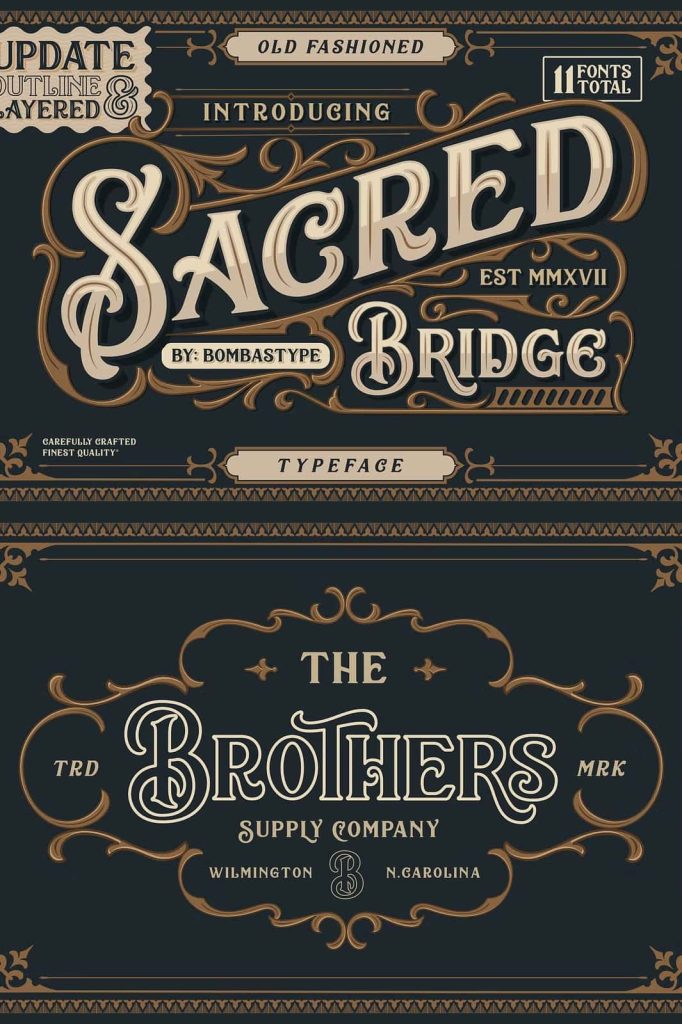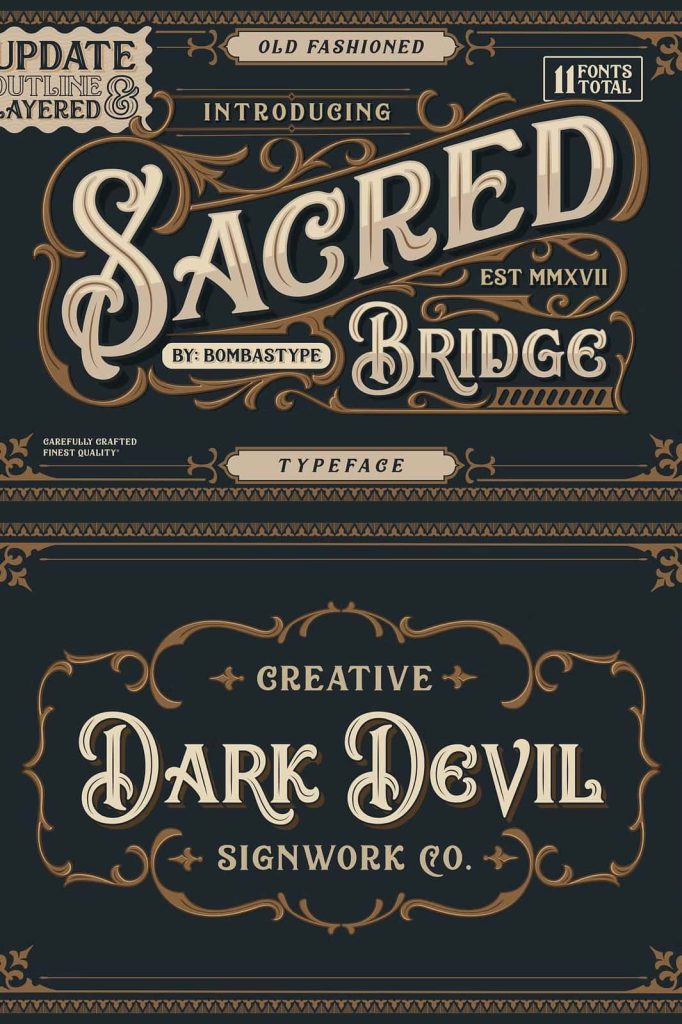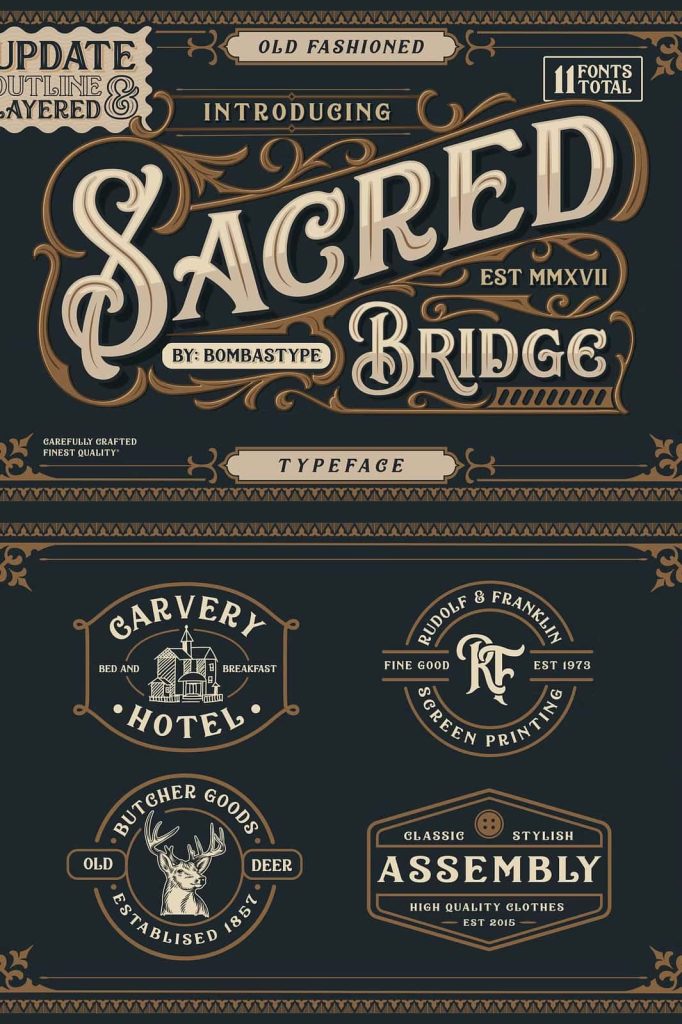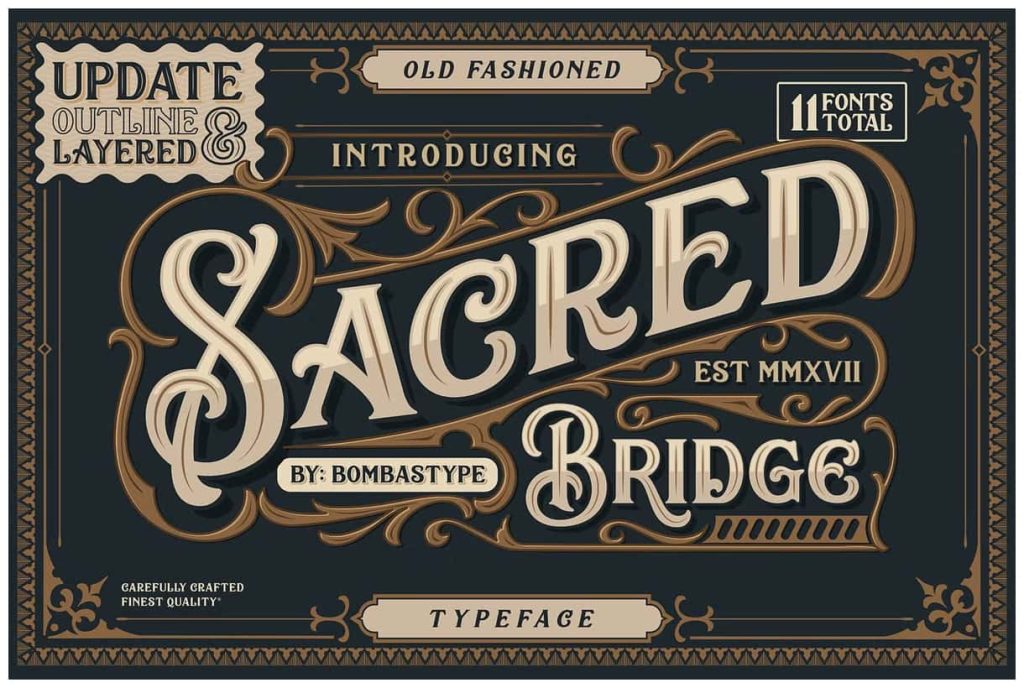
Sacred Bridge Typeface – A Vintage-Inspired Letterpress Font for Bold, Creative Design
Sacred Bridge is a vintage-inspired typeface crafted to revive the timeless beauty of old-fashioned letterpress printing. Designed with a balance of clean, crisp letterforms and authentic letterpress texture, this typeface brings character, warmth, and originality to modern creative projects. Offering both regular and italic styles, along with an impressive collection of extra ornaments and symbols, Sacred Bridge provides designers with a highly versatile typography tool that elevates branding, advertising, apparel design, and a wide range of display purposes.
A Typeface Built on Traditional Craftsmanship
Sacred Bridge draws inspiration from the rich history of classic printmaking. Its foundation reflects the stylistic nuances of traditional letterpress printing, capturing the subtle quirks, engraved textures, and handcrafted imperfections that give vintage typography its charm. Every curve and stroke is intentionally designed to recreate the feeling of early 20th-century type, while still delivering a clean and readable experience suitable for digital and print design.
This old-fashioned influence allows Sacred Bridge to stand apart from modern, overly polished typefaces. Instead, it embraces authenticity, originality, and depth—giving designers a tool that communicates craftsmanship and heritage with every letter. Whether used in large headlines or fine decorative detail, the font carries a unique story that enhances the visual identity of any project.
Clean and Letterpress Versions for Maximum Flexibility
One of the standout features of Sacred Bridge is the availability of both clean and letterpress styles. The clean version delivers sharp, refined edges suitable for minimal or modern layouts, while the letterpress version introduces textured, organic variations that mimic authentic print impressions. This flexibility allows designers to choose the exact tone they want to express, from bold clarity to nostalgic warmth.
Both versions maintain strong readability and visual impact, making them ideal for display purposes where personality and clarity must work hand in hand. The addition of italic styles further expands the creative possibilities by adding movement, emphasis, and elegance to the typography.
Extra Ornaments and Symbols for Rich Visual Design
Sacred Bridge includes a generous collection of ornaments, symbols, and decorative elements designed to complement the typeface seamlessly. These extras make it easy to build complete compositions, including badges, emblems, labels, packaging marks, and vintage-inspired branding assets. From flourishes and dividers to crafted iconography, each ornament enhances the font’s visual rhythm and helps designers create cohesive and expressive layouts.
These elements work especially well in branding systems, retro packaging, apparel graphics, and signage. By pairing the typeface with its matching ornaments, designers can achieve an authentic, handcrafted look that feels intentional and highly polished.
A Versatile Font for a Wide Range of Display Projects
Sacred Bridge excels as a display typeface, delivering strong personality in large-scale applications. It adapts effortlessly to various design styles—retro, rustic, heritage, industrial, or handcrafted. Use it to create bold branding identities, stylish emblems, striking advertising layouts, vintage posters, product labels, t-shirt graphics, and more. Its adaptable style makes it a reliable choice for projects that require visual impact paired with refined typography.
Whether you want a bold headline with classic charm, a nostalgic badge design, or a cohesive set of branded materials, Sacred Bridge provides the tools to make your work stand out with depth, texture, and timeless style.
Bring Character and Craftsmanship to Your Designs
Sacred Bridge is more than just a typeface—it is a celebration of classic printing traditions and handcrafted artistry. With its clean and letterpress versions, regular and italic styles, and a full library of ornaments and symbols, this font delivers exceptional value and versatility. It empowers designers to create expressive and professional displays for branding, apparel, advertising, packaging, and beyond.
If you want to add authenticity, impact, and vintage charm to your work, Sacred Bridge is the perfect typographic bridge between tradition and modern creativity. Let its classic craftsmanship bring your next project to life.